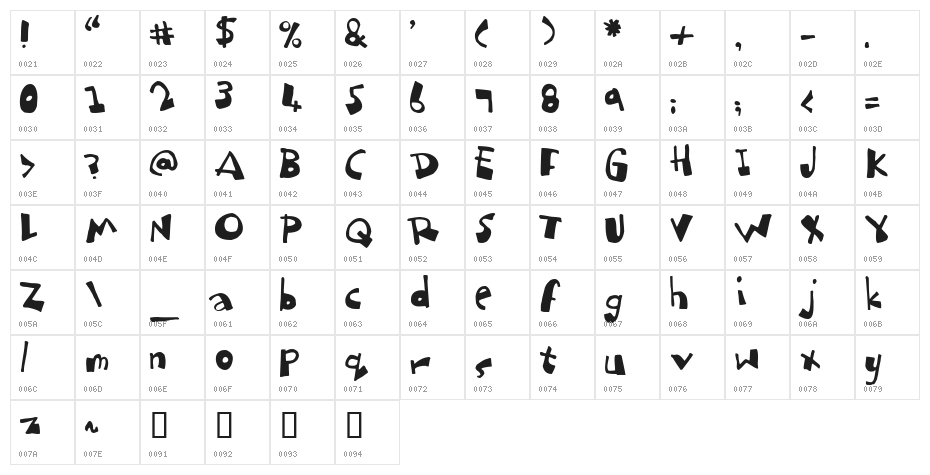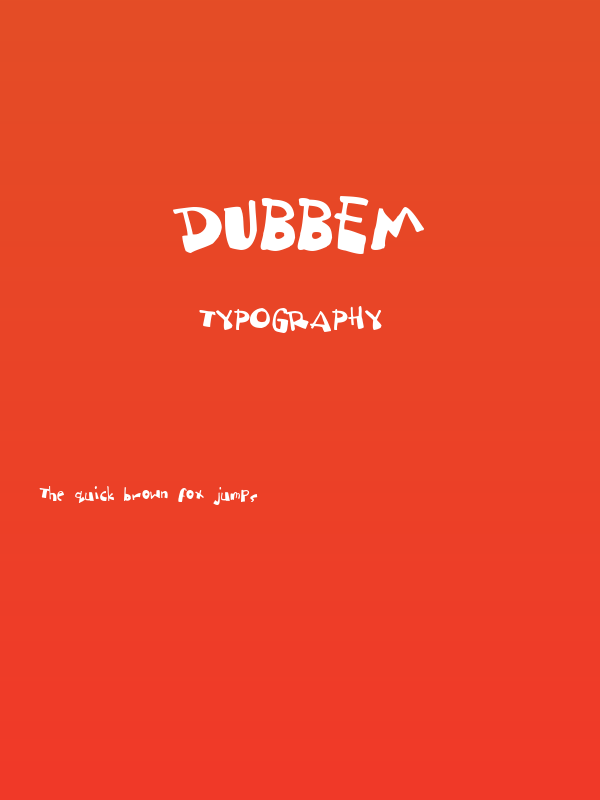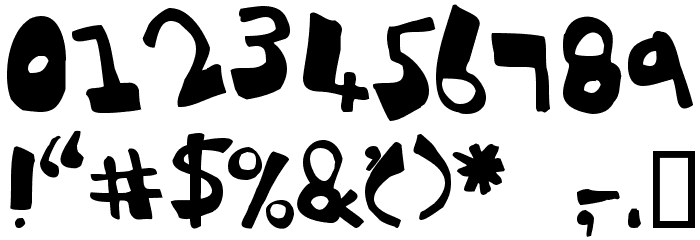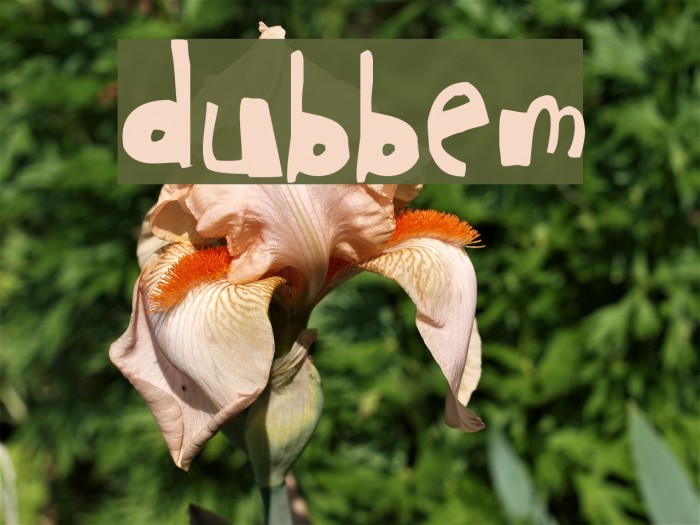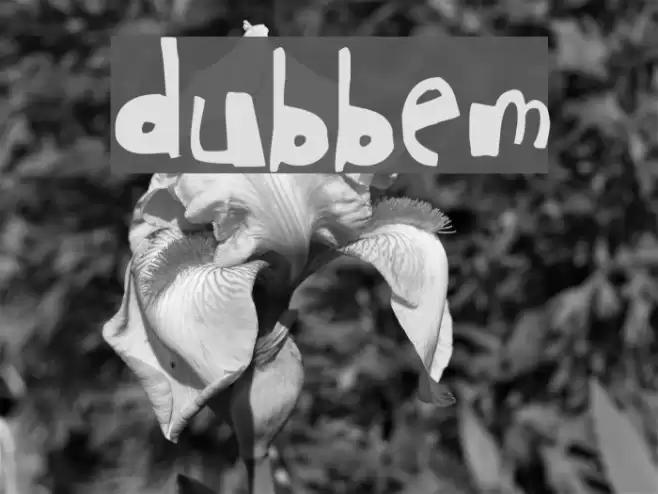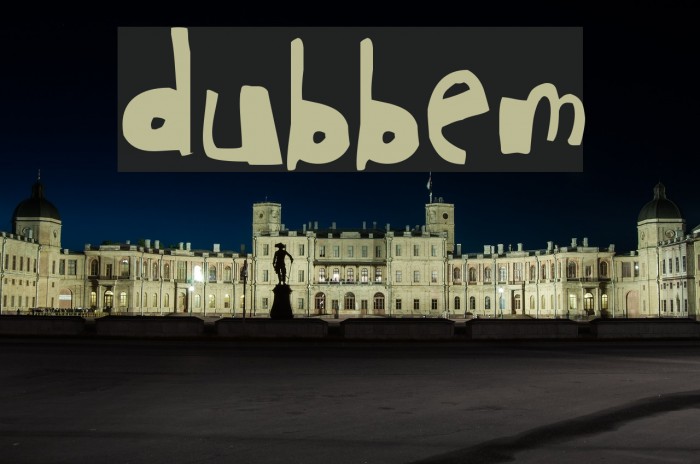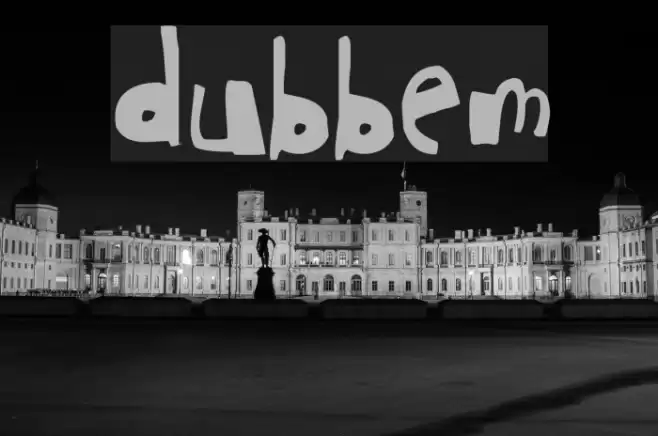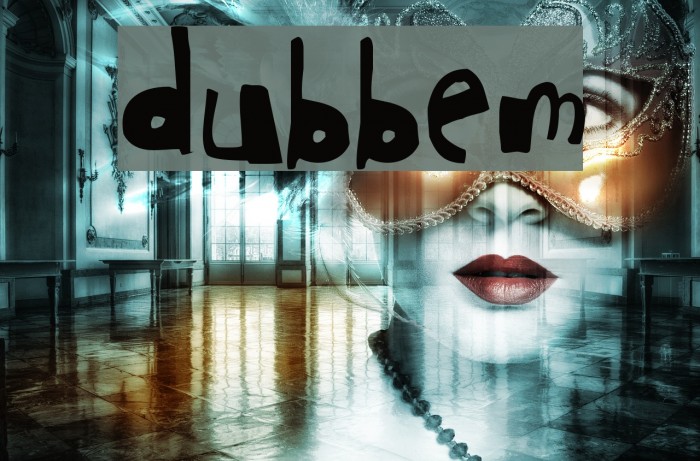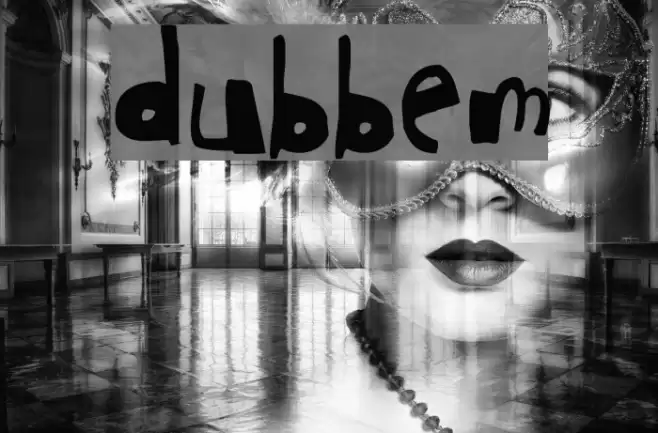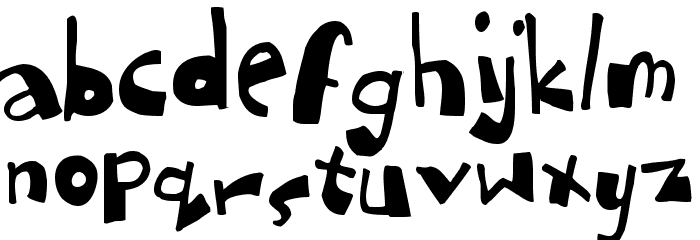
dubbem Font
dubbem Description
This font features a playful and irregular design, with each character exhibiting a unique and quirky shape. The letters are bold and uneven, giving a hand-drawn, artistic feel. The uppercase and lowercase letters maintain a consistent style, with exaggerated curves and angles that add to the whimsical nature. Numbers and special characters follow the same playful theme, making the font suitable for creative and informal projects. The overall appearance is dynamic and lively, perfect for capturing attention and conveying a sense of fun.
| Overall Style | Playful, Artistic |
| Proposed Projects | Ideal for children's books, playful branding, creative posters, and informal invitations. |